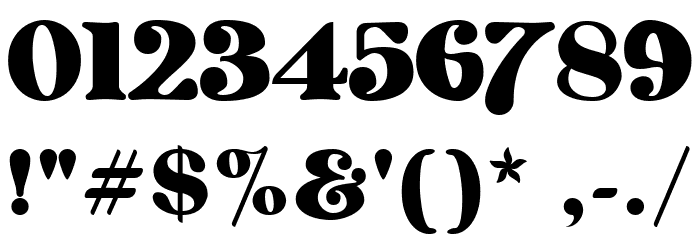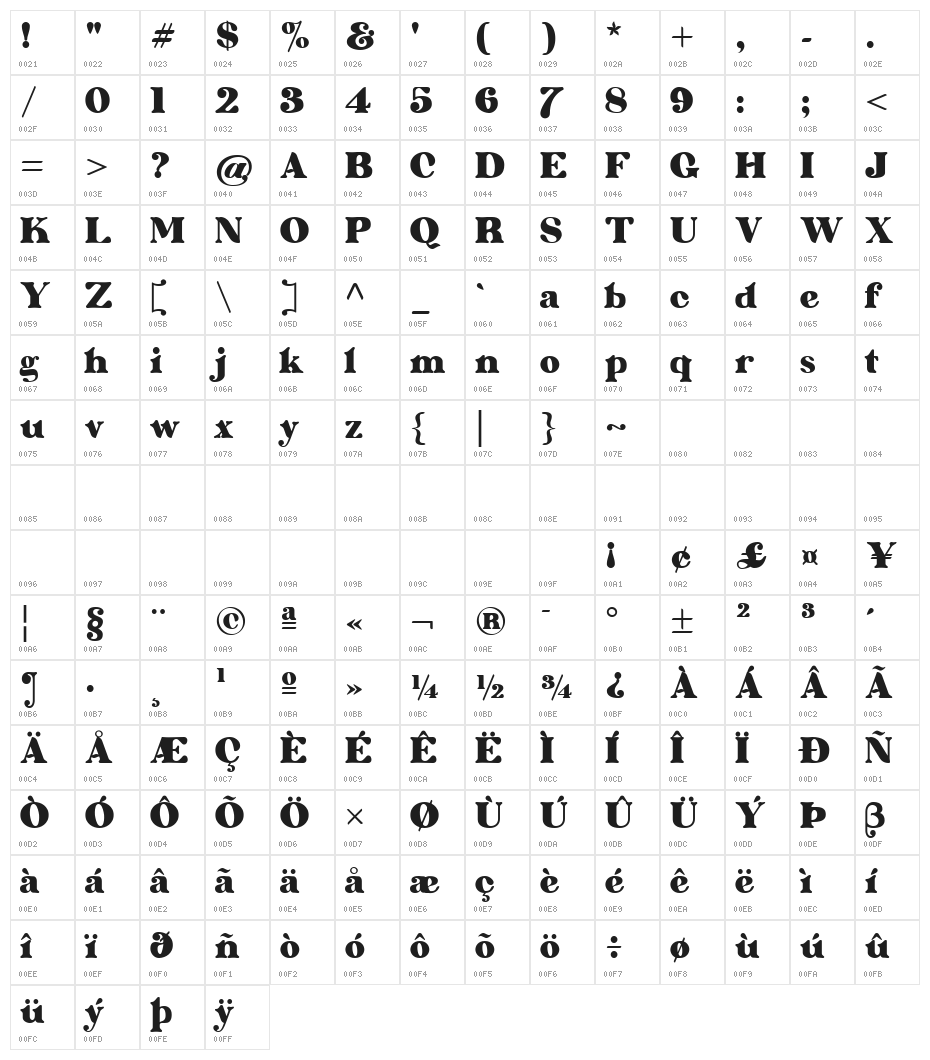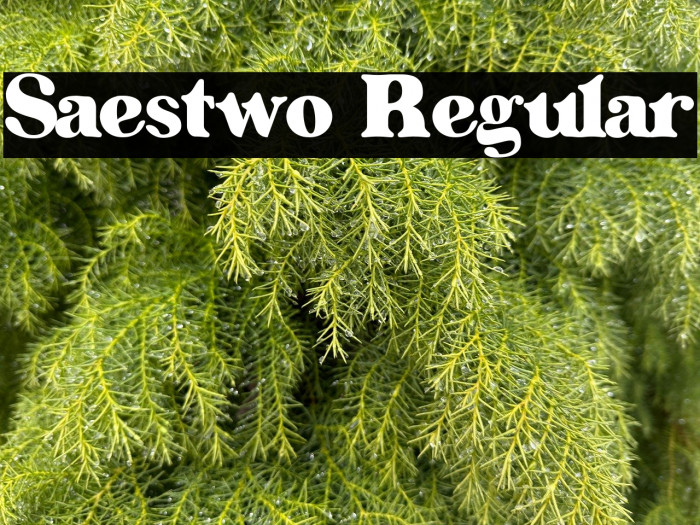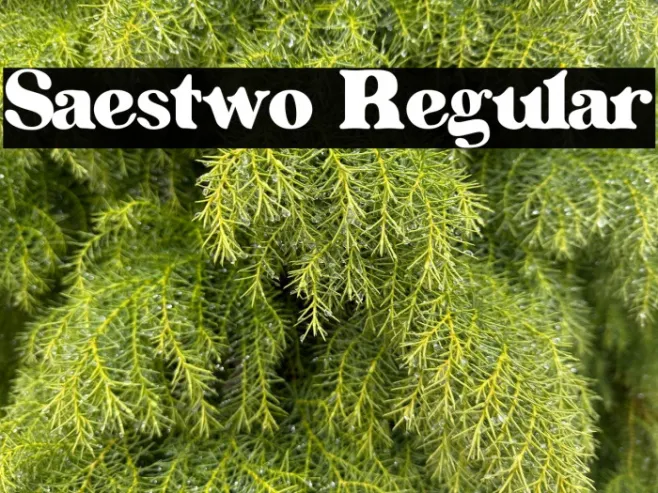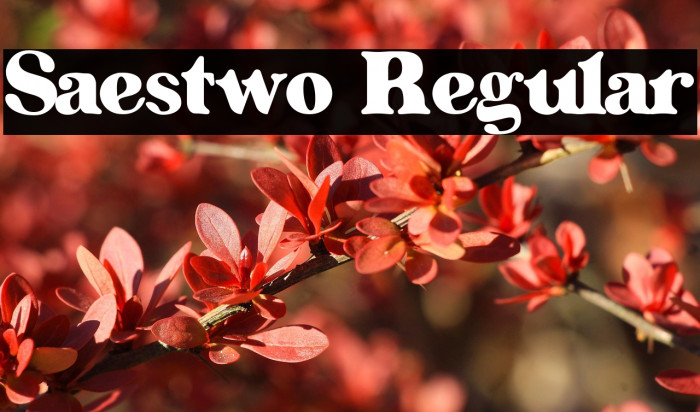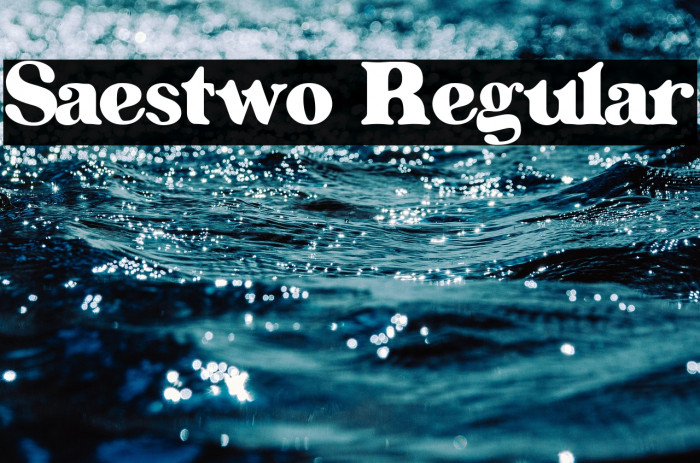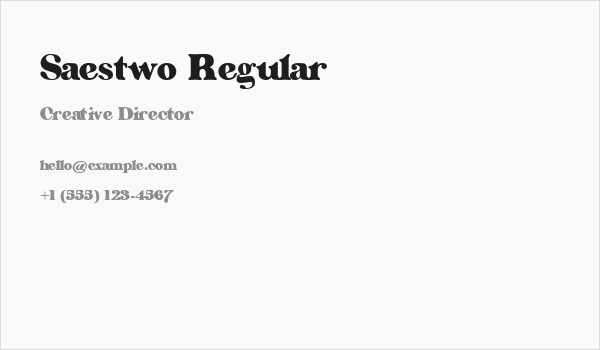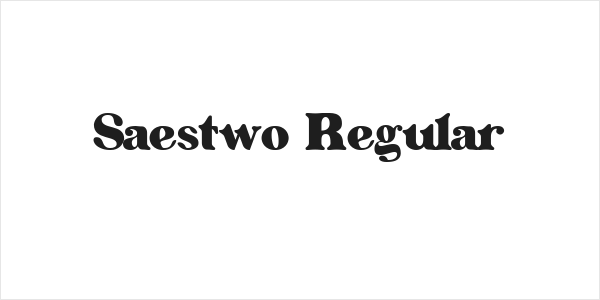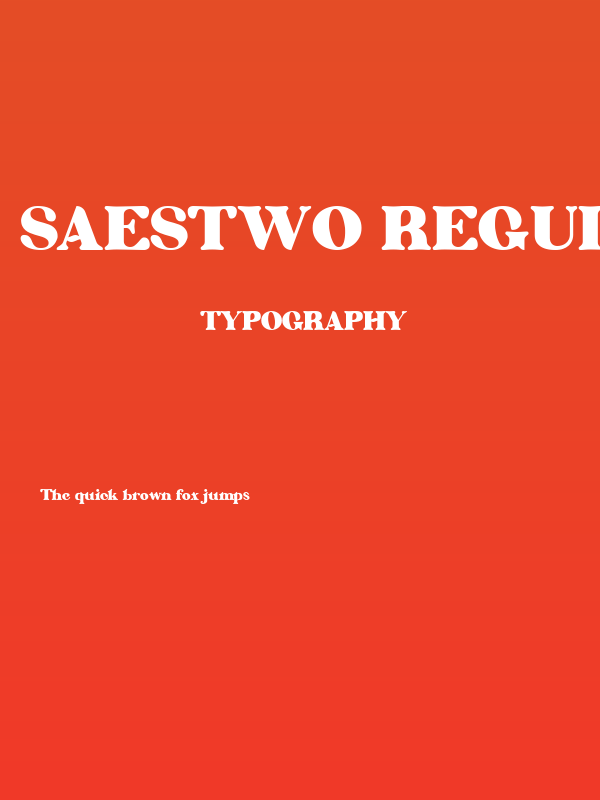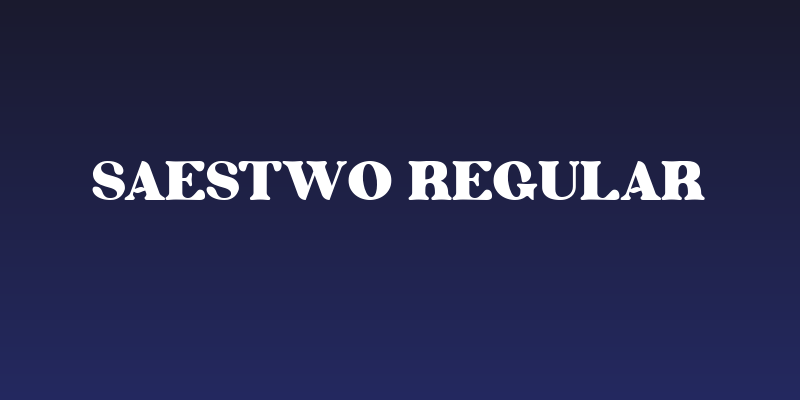
Saestwo Regular Font
Saestwo Regular Description
This font features a bold and dramatic style with thick, heavy strokes and pronounced serifs. The characters exhibit a strong presence, making them ideal for attention-grabbing designs. The uppercase letters are robust and commanding, while the lowercase letters maintain a consistent weight, offering a harmonious balance. The numbers are equally bold, ensuring readability and impact. Special characters are designed with the same boldness, providing a cohesive look across all glyphs. The overall aesthetic is both vintage and decorative, suitable for projects that require a touch of elegance and strength.
| Overall Style | Vintage, Decorative |
| Proposed Projects | Ideal for posters, headlines, branding, and packaging that require a vintage or decorative touch. |